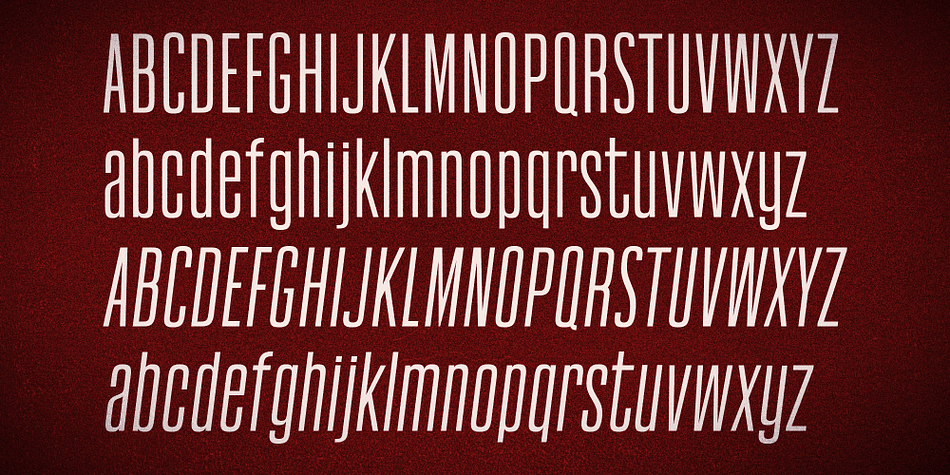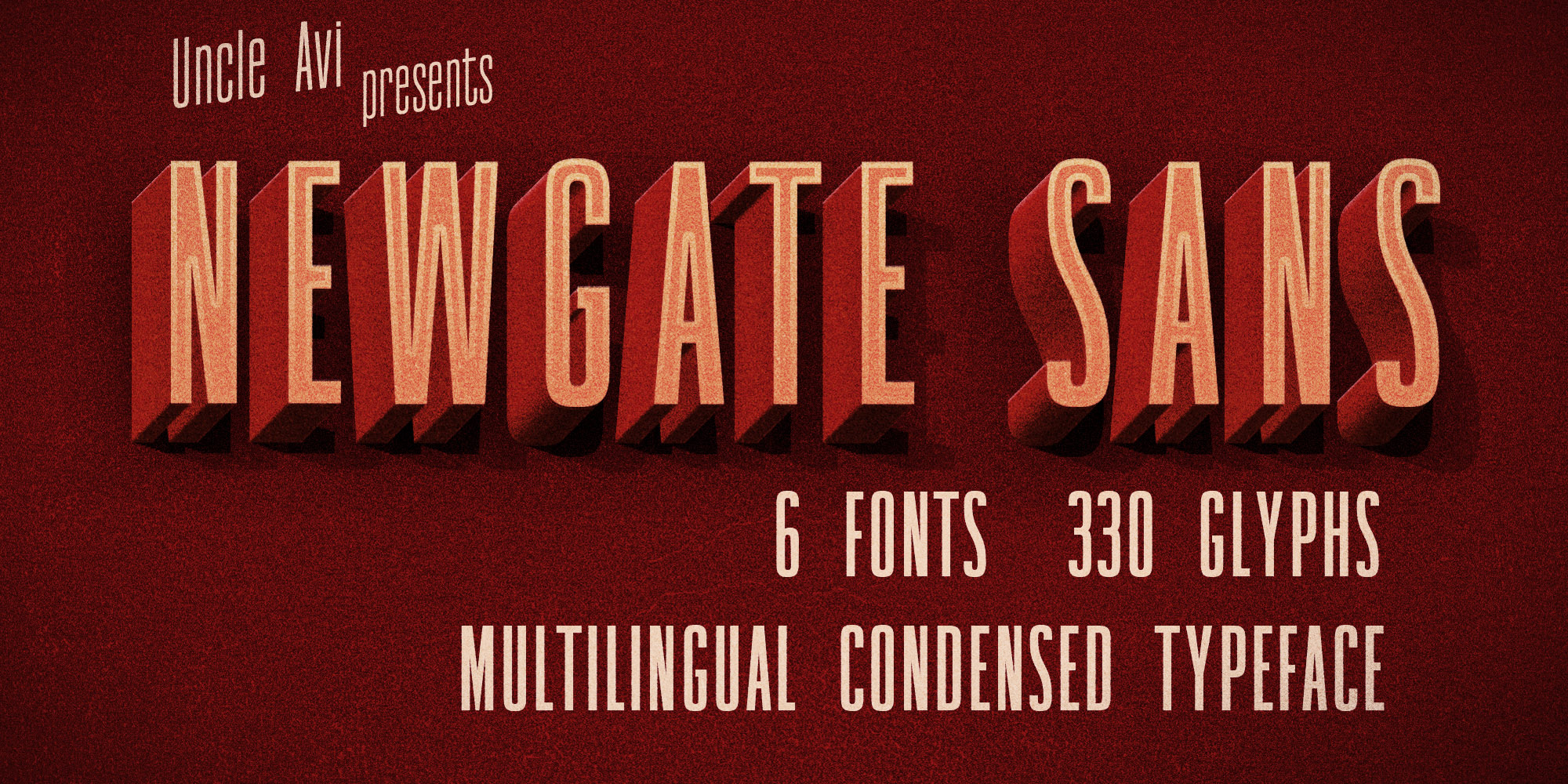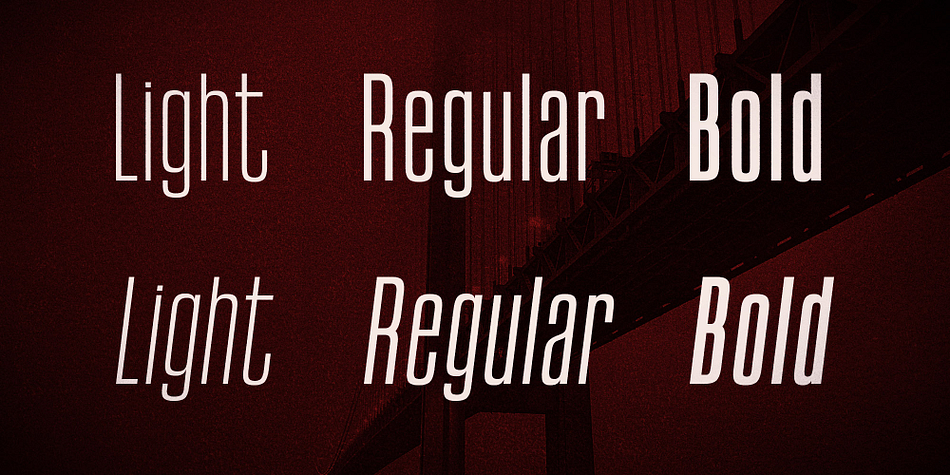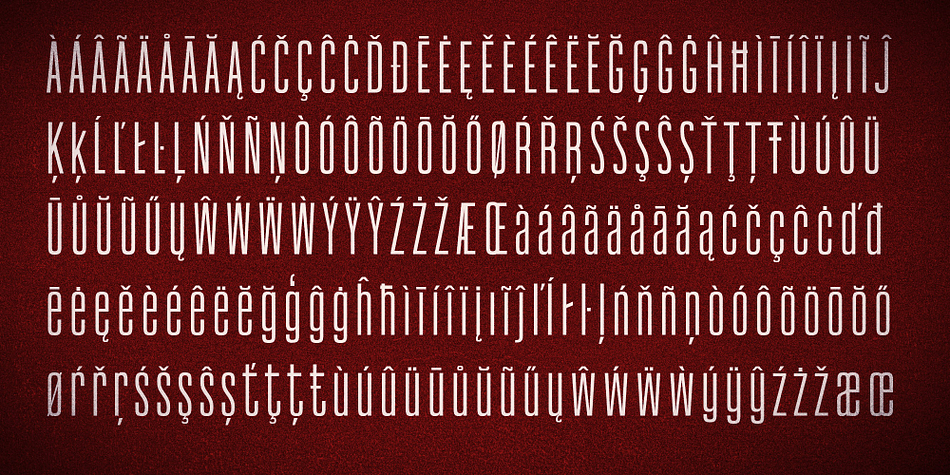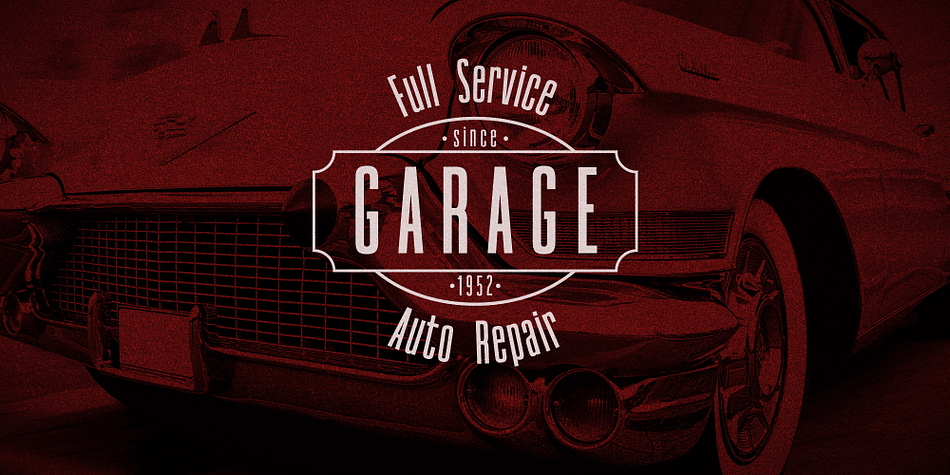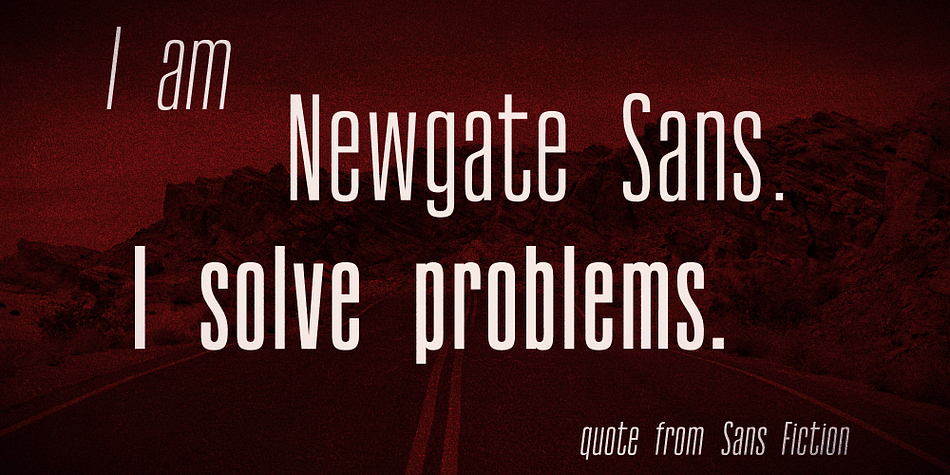
Designed by Uncle Avi, Newgate Sans is a display sans font family. This typeface has six styles and was published by Uncle Avi.
Newgate is modern condensed font with a retro feeling.
It’s designed to make a statement and is perfect for headlines, logotypes, branding materials, posters, and more.
Newgate Sans typeface includes six fonts: light, light oblique, regular, regular oblique, bold and bold oblique. All offer wide language support, upper and lower cases, numerals and extended punctuation.
It has 330 glyphs per style - covering western and central European Latin-based languages such as English, French, German, Polish, Latvian, Romanian and Turkish (among others).